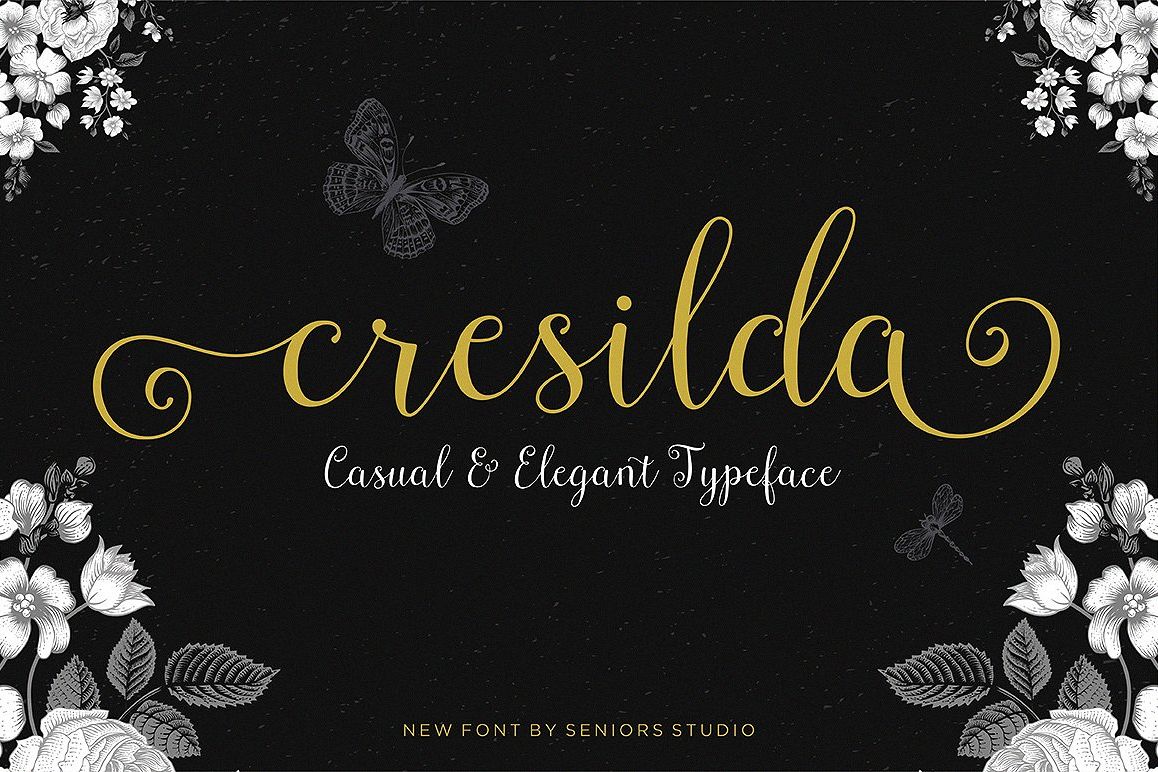
Cresilda Script is a fluid handwritten calligraphy fonts, combining calligraphy typefaces with a free flowing and moving baseline. It has a casual, yet elegant touch. features 270+ glyphs and 79 alternate characters. including initial and terminal letters, alternates, ligatures and multiple language support. Can be used for various purposes.such as headings, signature, logos, wedding invitation, t-shirt, letterhead, signage, lable, news, posters, badges etc. To enable the OpenType Stylistic alternates, you need a program that supports OpenType features such as Adobe Illustrator CS, Adobe Indesign & CorelDraw X6-X7.There are additional ways to access alternates/swashes, using Character Map (Windows), Nexus Font (Windows), Font Book (Mac) or a software program such as PopChar (for Windows and Mac).How to access all alternative characters, using Windows Character Map with Photoshop:https://www.youtube.com/watch?v=Go9vacoYmBw